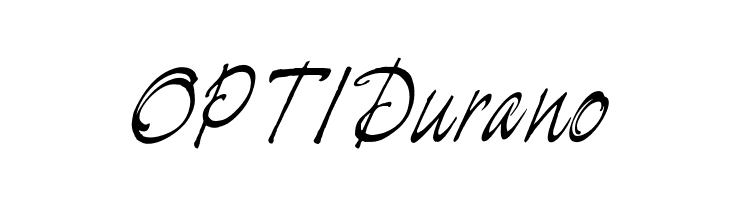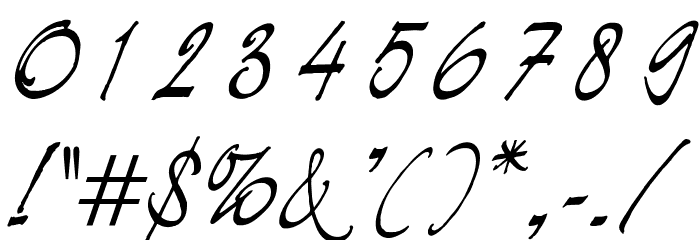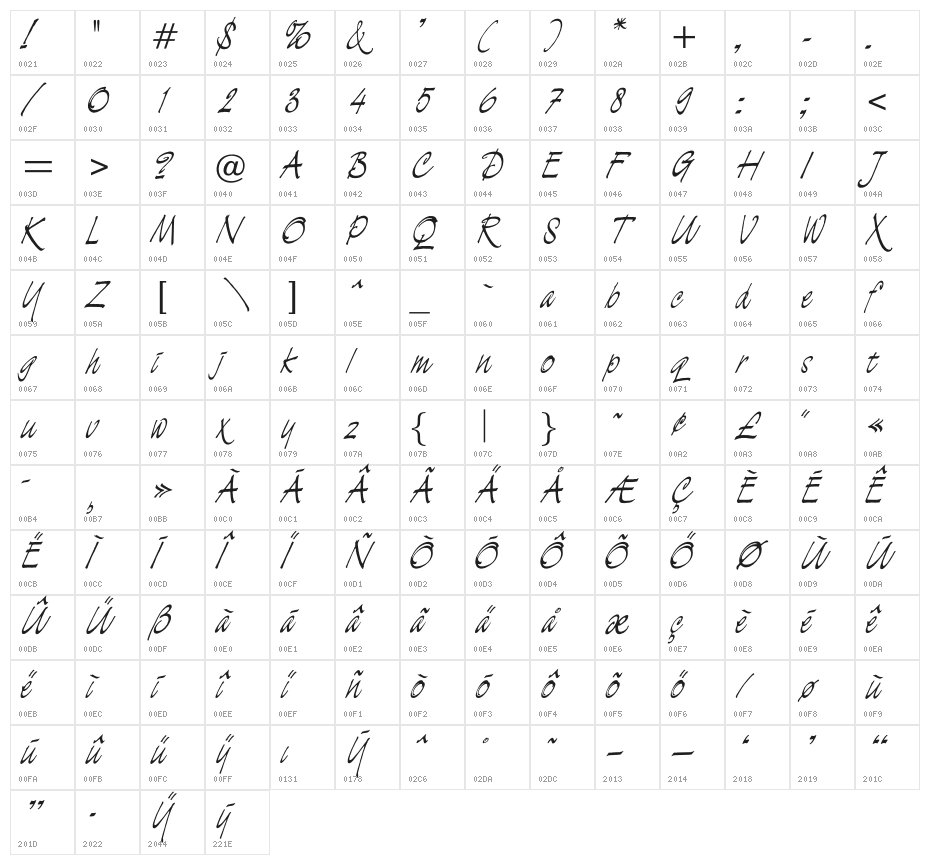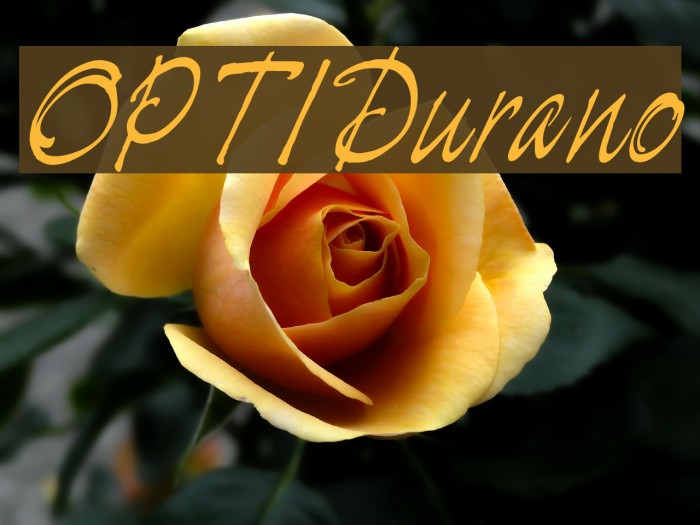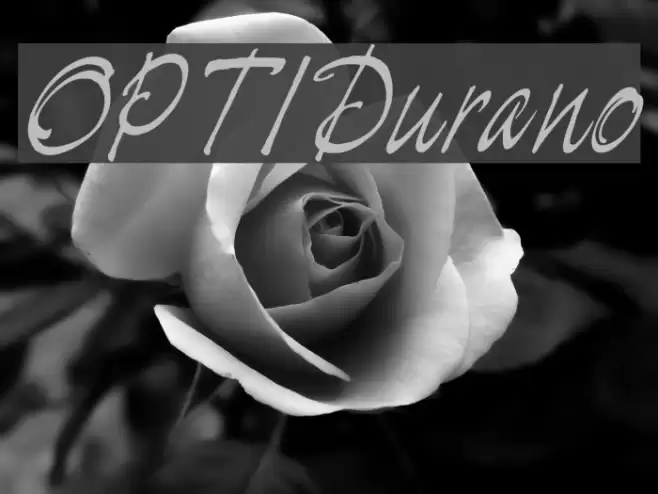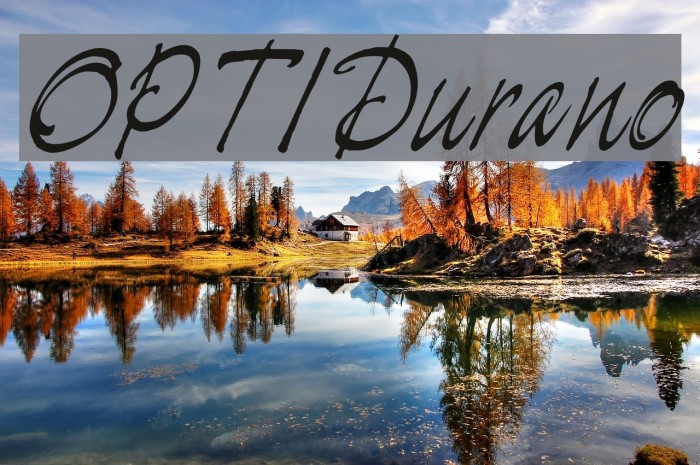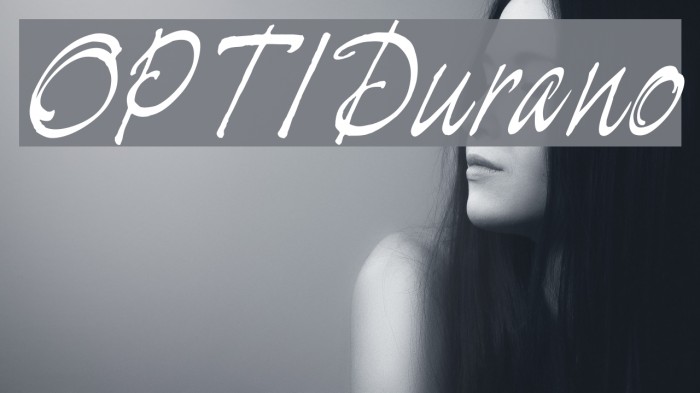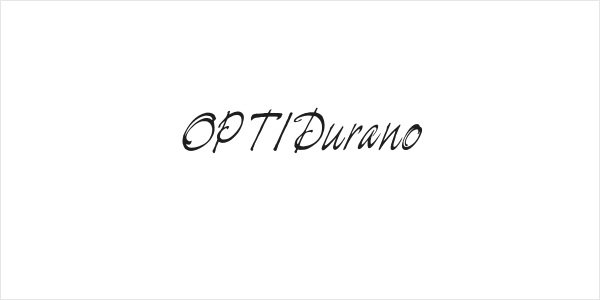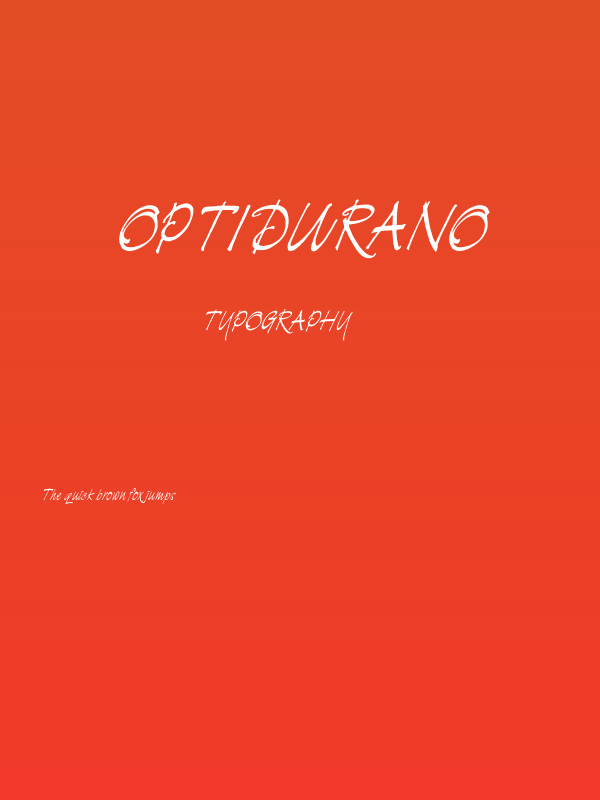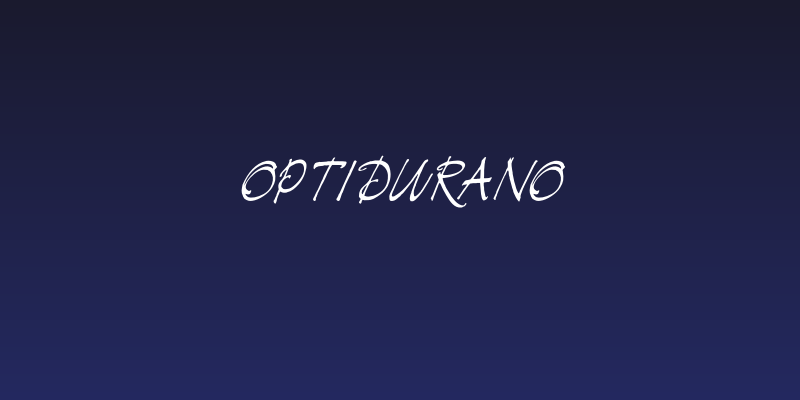
OPTIDurano Font
OPTIDurano Description
This font features a dynamic and expressive script style, characterized by its fluid and cursive letterforms. The strokes are varied, with a natural flow that mimics handwriting, giving it a personal and artistic touch. The uppercase letters are bold and slightly slanted, while the lowercase letters maintain a consistent rhythm and elegance. The numerals and special characters are crafted with the same attention to detail, ensuring a cohesive look across all elements. This font is ideal for projects that require a touch of sophistication and creativity.
| Proposed Projects | Ideal for wedding invitations, greeting cards, personal branding, and artistic projects. |